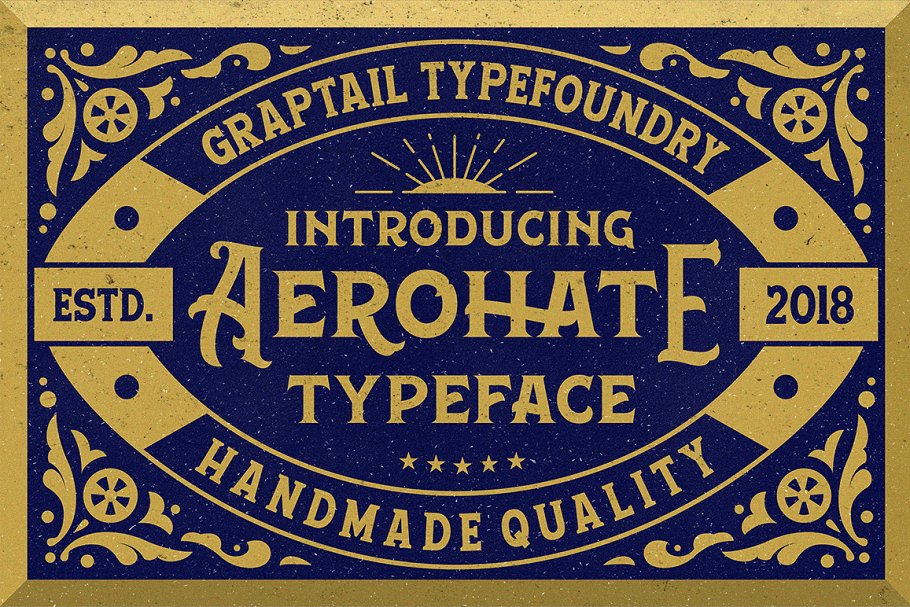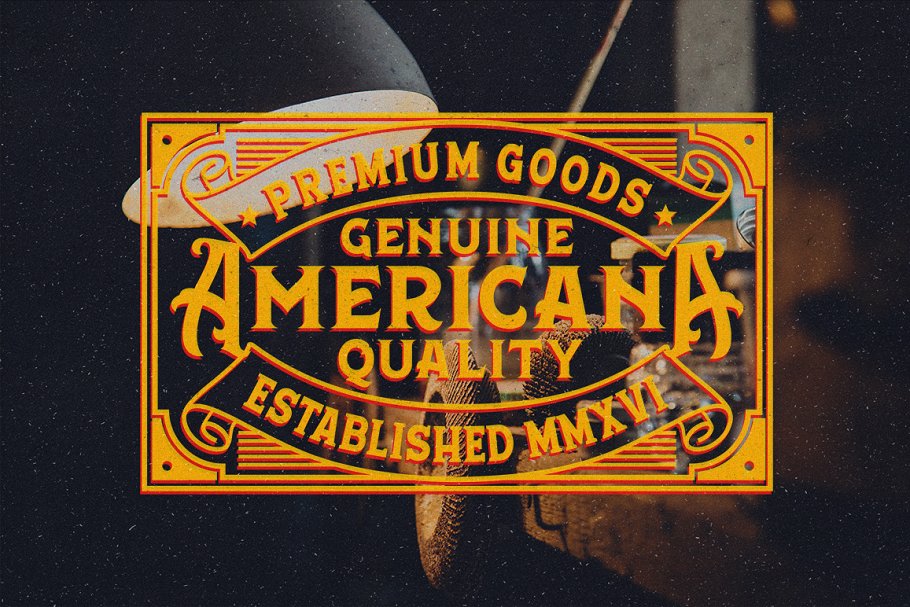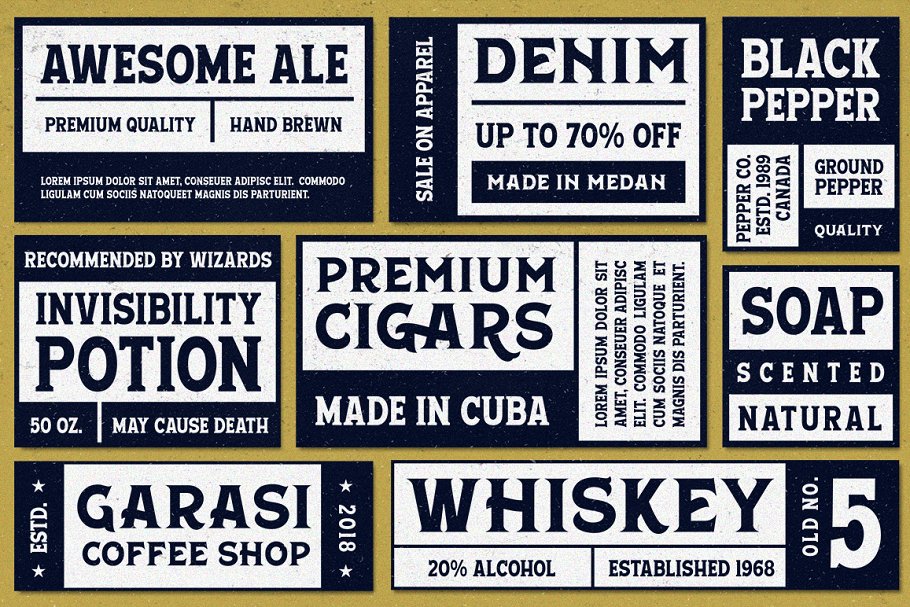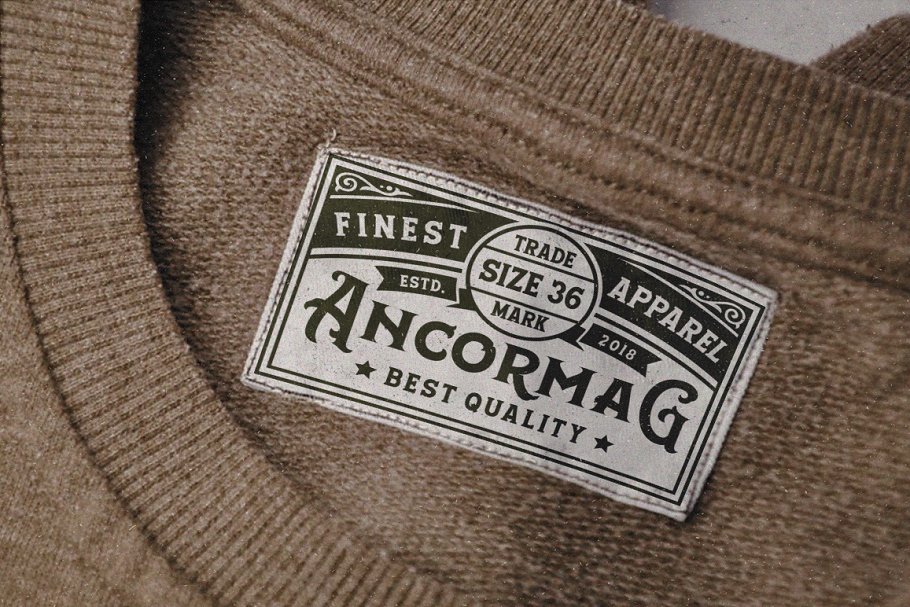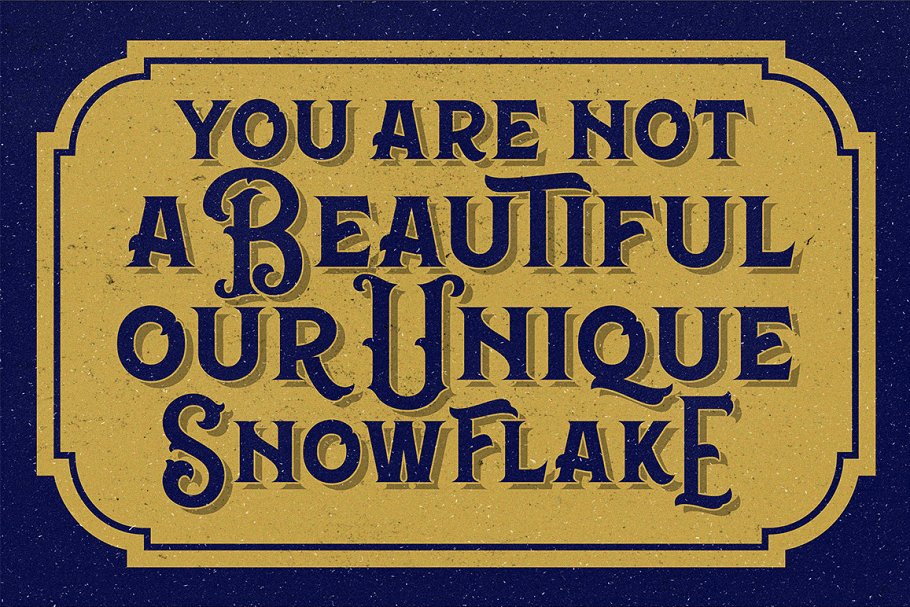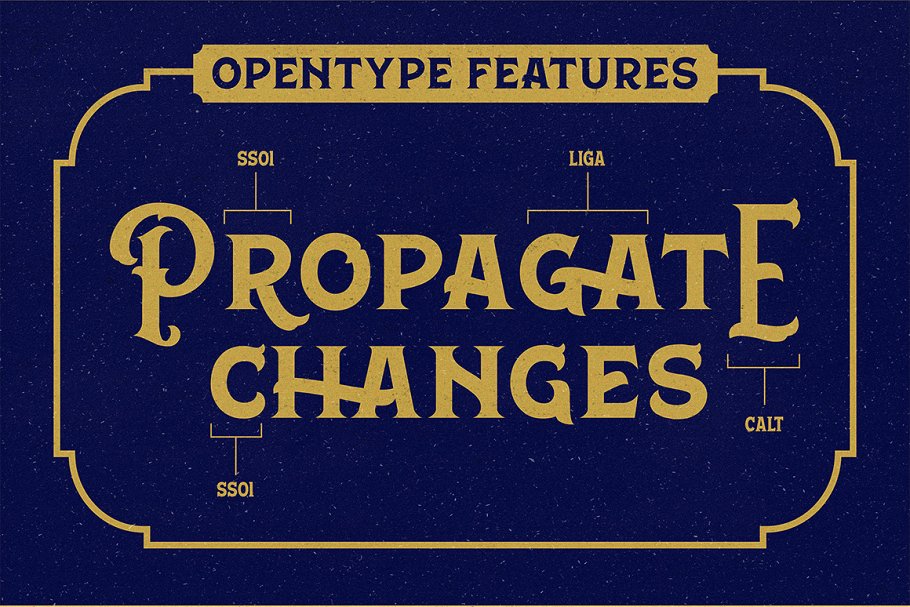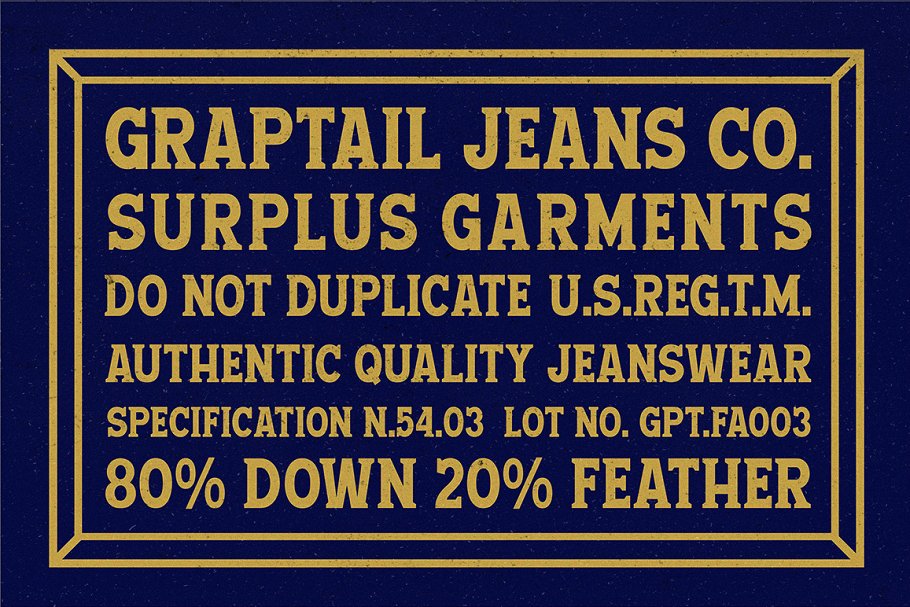
About the Aerohate Typeface Extras Font
Aerohate is a font display is made by hand, inspired by classic labels and poster, Aerohate comes with uppercase, lowercase, numerals, punctuations and so many variations on each character include opentype alternates, common ligatures and also additional swash to let you customise your designs, Perfect to use for Logotype, Letterhead, Poster, Apparel Design, Label and etc